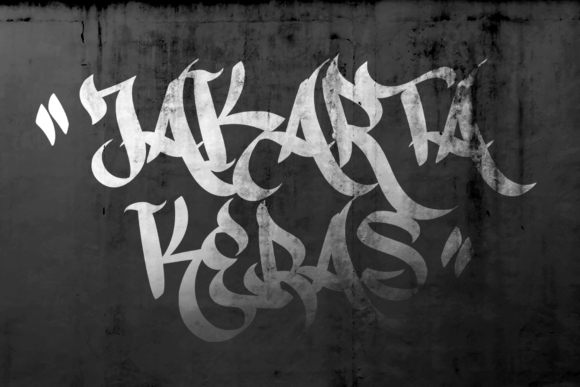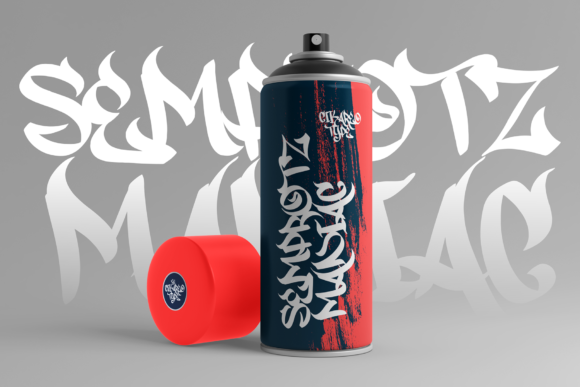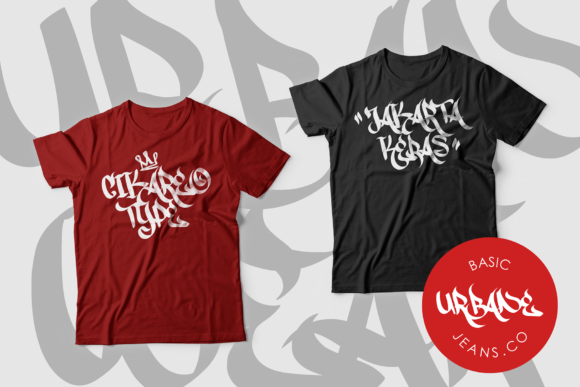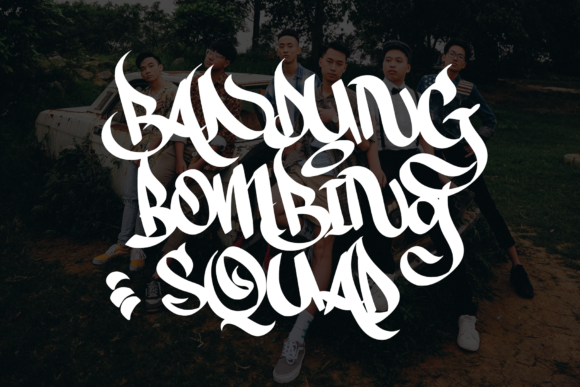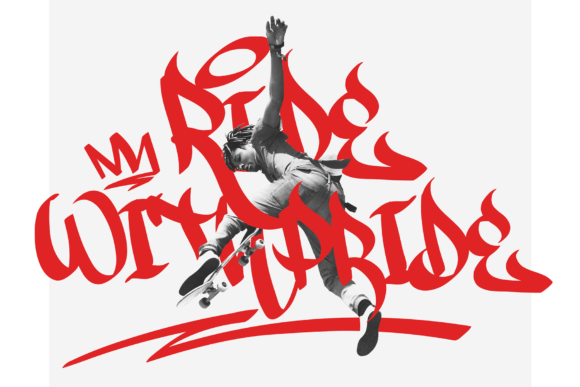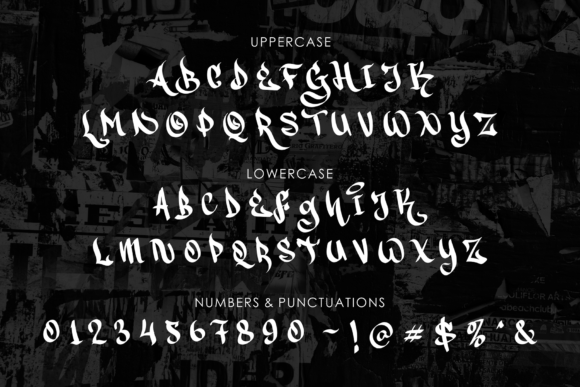
Introducing Greatboyz Font: The Ultimate Graffiti-Styled Display Font
Are you a designer or crafter looking for a font that adds a touch of street art vibe to your designs? Look no further than Greatboyz Font! This cool, graffiti-styled display font is perfect for creating eye-catching designs that stand out from the crowd. In this article, we’ll dive into the features and benefits of Greatboyz Font, and explore how it can elevate your designs to the next level.
What is Greatboyz Font?
Greatboyz Font is a unique and stylish display font that is inspired by the urban street art scene. Its graffiti-styled letters are bold, colorful, and full of character, making it perfect for designs that require a bit of attitude and edge. Whether you’re creating a logo, advertisement, or t-shirt design, Greatboyz Font is sure to make a statement.
Key Features of Greatboyz Font
- Graffiti-styled letters: Greatboyz Font features bold, colorful, and stylized letters that are reminiscent of urban street art.
- Street art vibe: This font has a distinct street art vibe that adds a touch of edginess to any design.
- Display font: Greatboyz Font is a display font, making it perfect for headlines, titles, and short phrases.
- Versatile: This font is suitable for a wide range of designs, including t-shirts, sportswear, logos, advertisements, clothing, and more.
Benefits of Using Greatboyz Font
So, why choose Greatboyz Font for your designs? Here are just a few benefits of using this amazing font:
- Adds a touch of street art vibe: Greatboyz Font adds a unique and stylish touch to any design, making it perfect for designers who want to create bold and eye-catching designs.
- Perfect for urban-themed designs: If you’re creating designs for urban-themed brands or products, Greatboyz Font is a great choice.
- Increases brand visibility: The bold and colorful letters of Greatboyz Font are sure to grab attention and increase brand visibility.
Design Ideas Using Greatboyz Font
So, how can you use Greatboyz Font in your designs? Here are a few ideas to get you started:
- T-shirt designs: Greatboyz Font is perfect for creating bold and eye-catching t-shirt designs that are sure to stand out.
- Sportswear designs: Add a touch of street art vibe to your sportswear designs with Greatboyz Font.
- Logo designs: Use Greatboyz Font to create a unique and stylish logo that reflects your brand’s personality.
- Advertisements: Greatboyz Font is perfect for creating eye-catching advertisements that grab attention.
In conclusion, Greatboyz Font is a cool, graffiti-styled display font that is perfect for designers and crafters who want to add a touch of street art vibe to their designs. With its bold and colorful letters, Greatboyz Font is sure to make a statement in any design. Whether you’re creating t-shirt designs, logos, advertisements, or clothing, Greatboyz Font is a great choice. So why wait? Download Greatboyz Font today and start creating amazing designs that stand out from the crowd!
Tips and Tricks for Using Greatboyz Font
Here are a few tips and tricks for getting the most out of Greatboyz Font:
- Experiment with colors: Greatboyz Font looks amazing in bold and bright colors, so don’t be afraid to experiment with different color combinations.
- Use it sparingly: Greatboyz Font is a bold font, so use it sparingly to avoid overwhelming your design.
- Pair it with other fonts: Greatboyz Font pairs well with other fonts, so try pairing it with a clean and simple font to create contrast.
By following these tips and tricks, you can create amazing designs that showcase the unique style of Greatboyz Font.